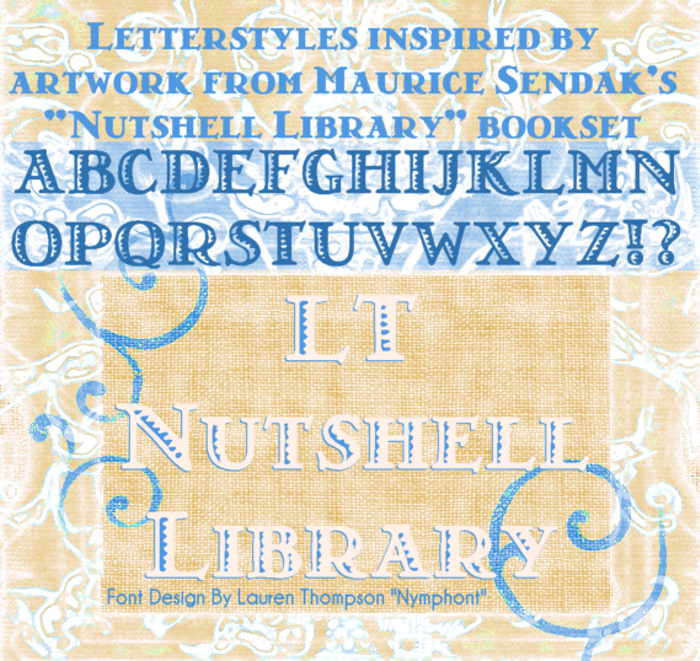
LT Nutshell Library Font
Thank you, I do regret that this font does not have numbers, I do plan to add them in a future update.
This is a recreation of a 1920's font from a Spanish foundry. The family was called Greco, and the nice sawtooth version was Greco Adornado. If you Google that, you can find other interpretations/revivals, and sources for numbers. Here's a nice printer's catalog page: http://www.peterkochprinters.com/image.php?img=68
No it's a re-creation of the type seen on the cover of the Maurice Sendak bookset called THE NUTSHELL LIBRARY
Hence it's name. I am so sick of hearing crap like this. It's an art deco font and there are several fonts that look similar. Greco Decko being one that looks strikingly similar.
Believe me, had I ever seen the font before I would have never wasted my time making this one.
I gave this 3 stars because it's a lovely font, but no numbers?